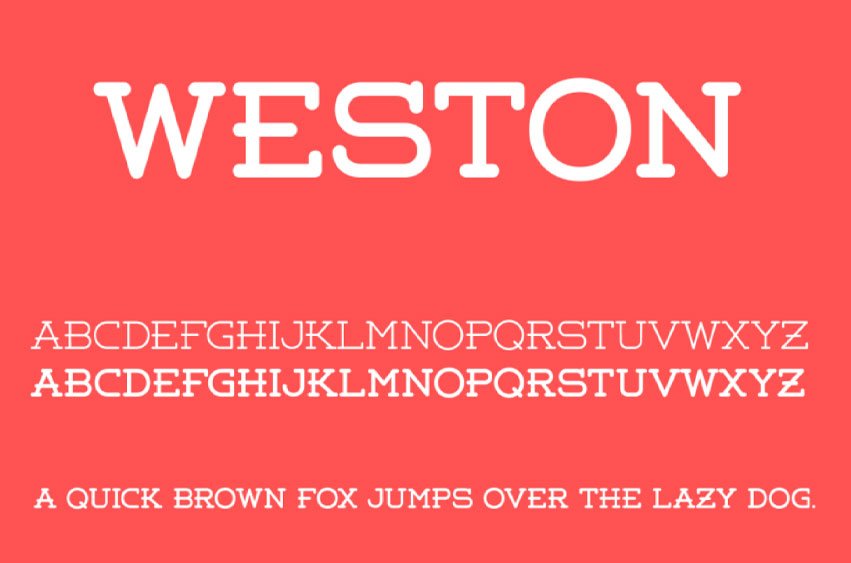
Weston Font is the new slab-serif font by Pavel Pavlov. The primary purpose of the project is to give designers a font that can be modified for logos and headings.
Combined wisely, Weston will spice up your design adding the “not-your-usual-font-choice” effect. This font is inspired by the classic Grover & rockwell. It would love to be in your library.